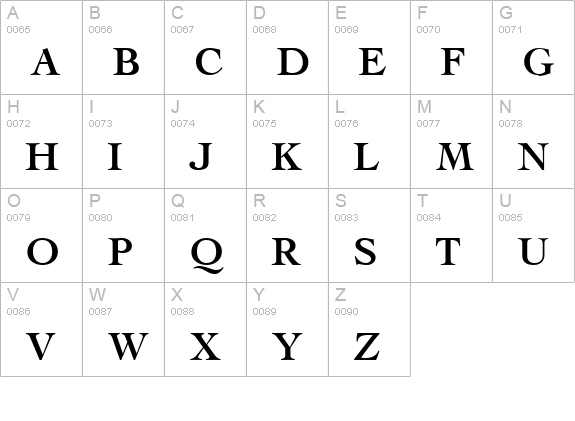
Collage Bold Font Details
Collage Bold is a strong, high-contrast variant in the Collage typeface family \xE2\x80\x94 well suited to headlines, attention-grabbing titles, and strong calls-to-action.
Collage Bold font is a stunning display typeface that exudes creativity and modernity. Its bold and dynamic design makes it perfect for making a statement in your projects. This versatile font is ideal for various design purposes, from branding to advertising, packaging to posters. What sets Collage Bold font apart is its unique combination of sleek lines and artistic flair, giving your text a bold and eye-catching appearance. Whether you are looking to add a touch of sophistication to your designs or make a bold statement, this font has got you covered. Best of all, Collage Bold font is available for free download at FontsMarket.com. So, don't miss out on the opportunity to enhance your designs with this stylish and striking typeface. Download Collage Bold font today and let your creativity shine!